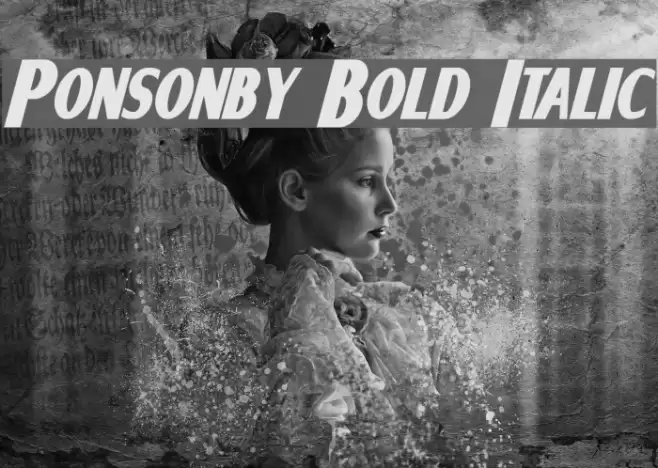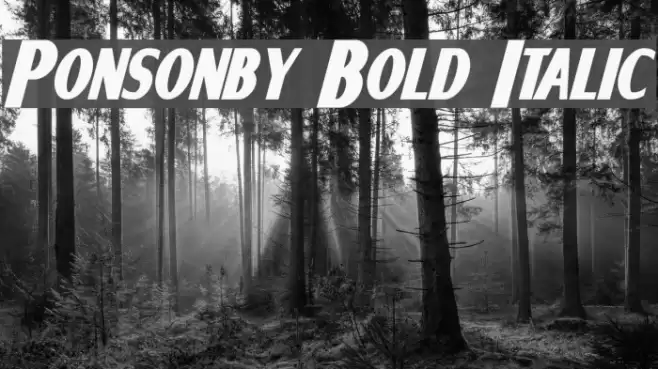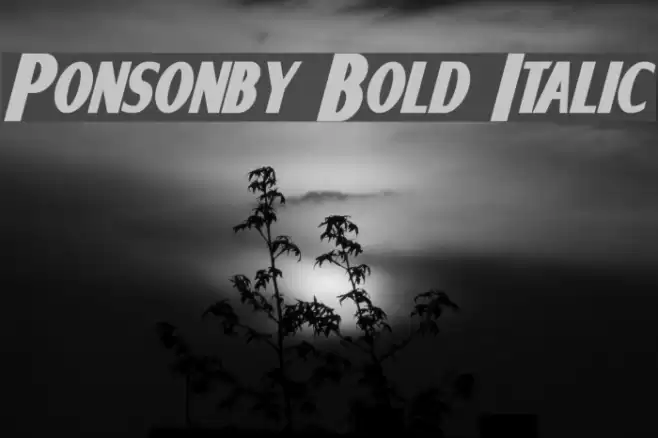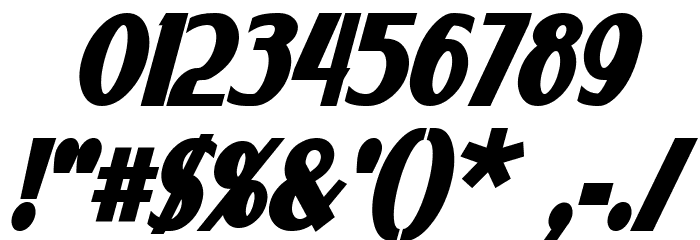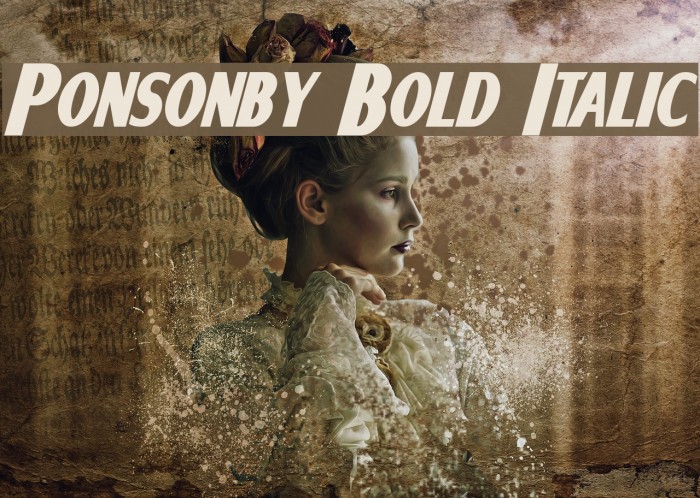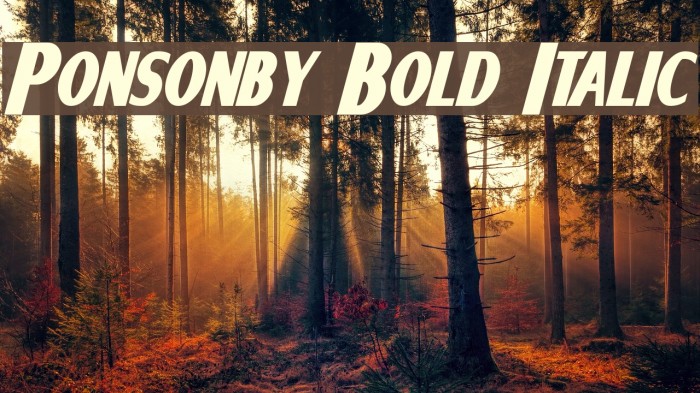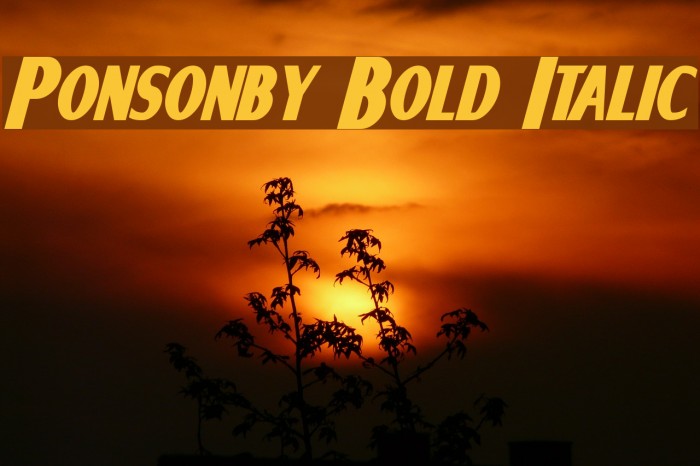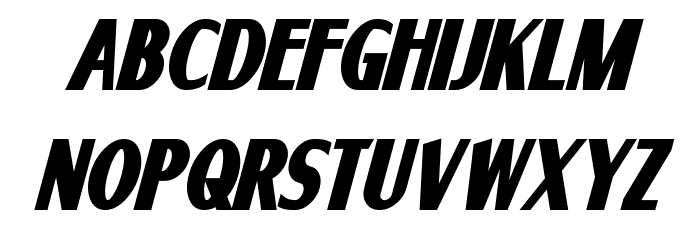
Ponsonby Bold Italic Font
Ponsonby Bold Italic Description
This font exhibits a bold and italicized style, characterized by its strong and dynamic presence. The letters are slanted, giving a sense of movement and energy. The strokes are thick and consistent, providing a robust and impactful appearance. The uppercase and lowercase letters maintain a uniform weight, ensuring readability and balance. The numerals and special characters are designed to match the boldness and slant of the alphabet, creating a cohesive look across all glyphs. This font is ideal for making a statement, with its bold lines and italic slant adding emphasis and flair.
A bold, italicized font with strong, dynamic strokes and a cohesive design from Uncategorized fonts.